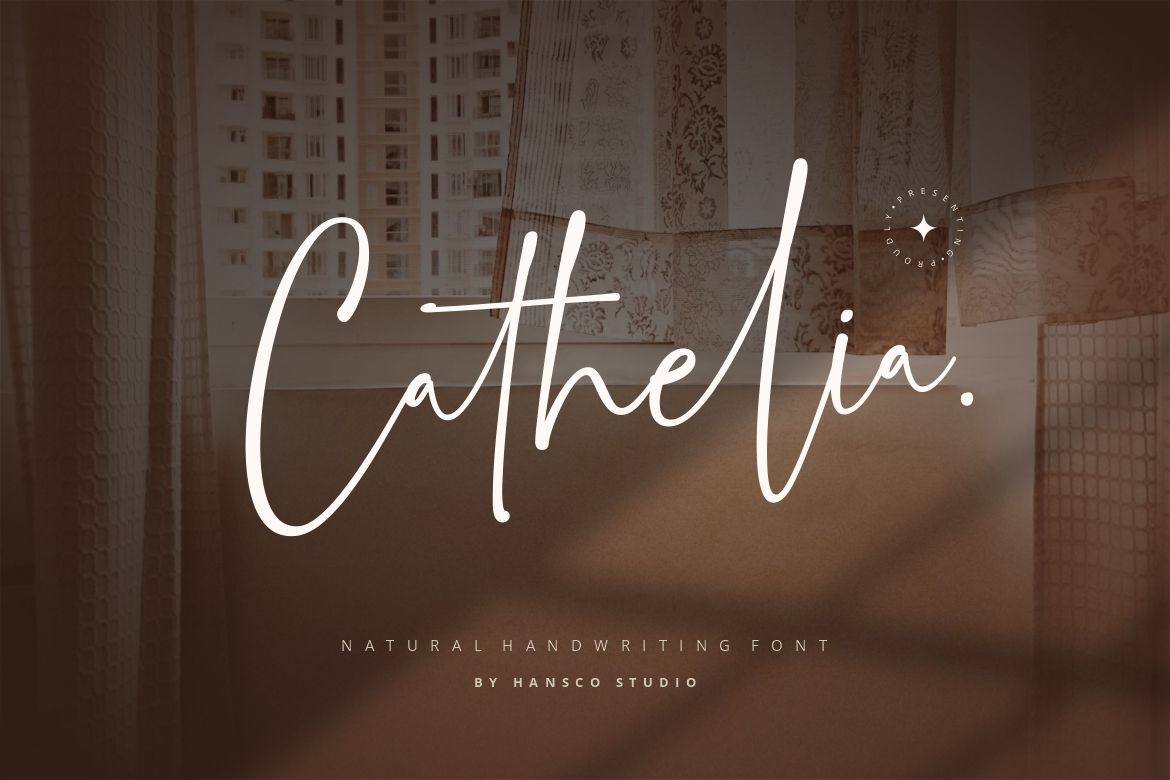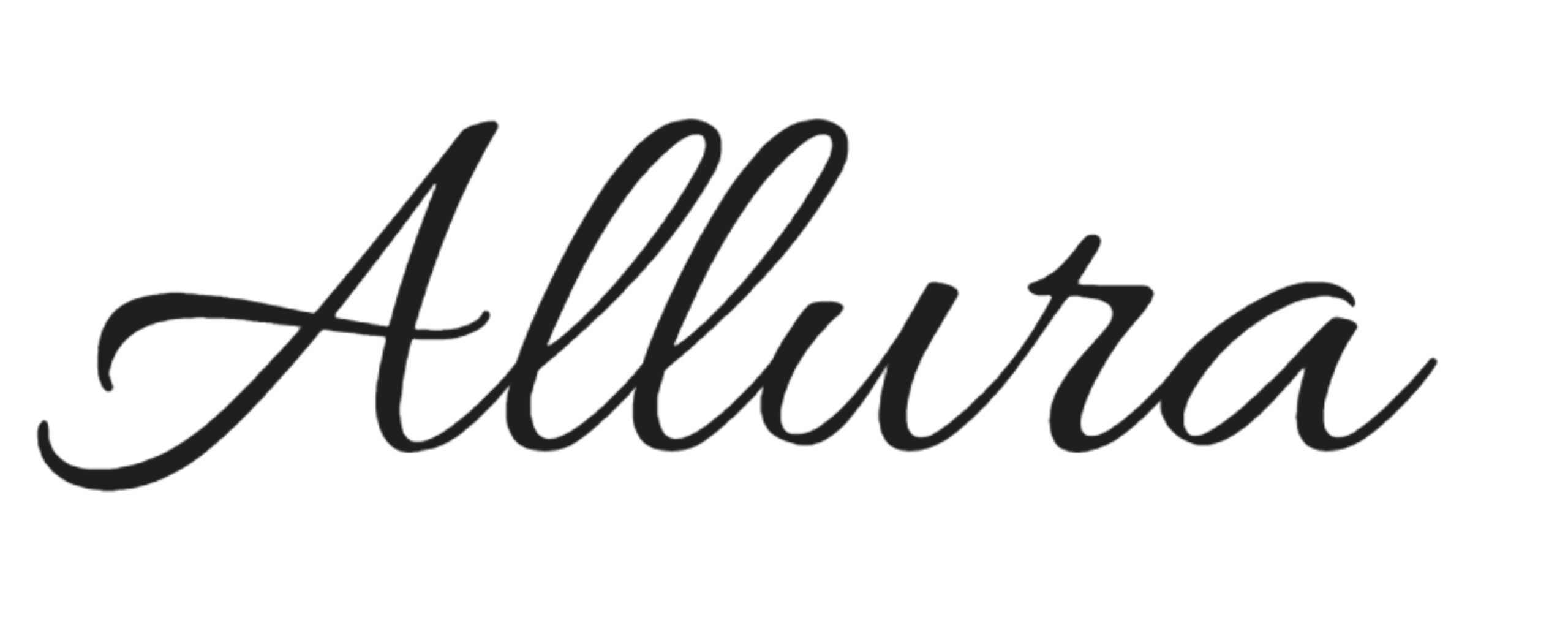
Vintage Handwritten Fonts Inspiration!
Vintage handwritten fonts can enhance design with their graceful characteristics. But, knowing that it has numerous distinctive styles, you may need to choose the right one that can give impressive benefits to your brand.
For this reason, we’ve come up with a list of handwritten fonts that may inspire you to create great artwork, ones that have a powerful effect. Let’s dive into the recommendation now!
Best Vintage Handwritten Fonts Inspiration
Believe it or not, font choices determine how well a design’s result can be. Either you are a senior or beginner designer, sometimes choosing the right font can feel so frustrating.
We surely understand you and that’s why, we are here to give you a source of inspiration to look for. This list must be beneficial, especially if you are working on vintage themed designs.
1. Arizonia
Arizonia with its bold strokes can transform your design to have a lively effect. Though it’s categorized as a vintage font, the flowing letterforms made this handwritten also suitable for modern design.
Mostly, designers love to use them for creating engaging headlines and it will look better when paired with serif fonts or other neutral fonts.
2. Allura
Allura is such an alluring and delicate font, often used for romantic themed events. Its graceful style also radiates feminine energy, so it’s very likely to find them in feminine products’ branding.
Just like Arizona, this font looks good when combined with serif fonts.
3. Balqis
If you are more up to a playful and quirky vintage handwritten fonts, Balqis is one of the best fit for you. The letters look bumpy and bouncy that can add a fun-loving feel to your design. For best use, Balqis are mainly applied in logos and headlines.
4. Dancing Script
Dancing Script is a vintage cursive font style with reference to the 1950s era. Each letter has a different height as if it is flowing naturally and seamlessly. It suggests a personal touch makes it perfect for designers who want to highlight a human-made feel design.
5. Great Vibes
Great Vibes is popular for its refined strokes and formal calligraphy styles. The strokes are more dynamic and legible to read even if it’s elaborated with other ornamental effects.
It also conveys a solid emotional tone, especially perfect to use in wedding invitations and feminine brands. But, if you want to combine the font for high-end and luxury designs, Great Vibes remains an ideal choice.
6. La Luxes Script
La Luxes Script blends vintage with modern luxurious styles. Its elegant letterforms feature high contrast strokes, upscaling a design into a glamorous look. Their intricate style offers versatility, applicable for headlines, wedding invitations, and vintage logos.
You can also expect diverse ligatures and alternates when downloading this font. It’s very beneficial to create customizable designs.
7. Satisfy
Satisfy is a friendly vintage font that looks fun yet elegant at the same time. If you go for vintage casual branding, Satisfy is a well-suited option. Use them to create approachable designs for your cafes, coffee shops, or handcrafted shops.
8. Sacramento
Sacramento is one of vintage handwritten fonts that radiates 50s and 60s energy. This font is giving a classic aesthetic vibe from its monoline and signature script style.
Such specialty makes Sacramento a good fit for brands that want to add more personal promotional strategy. Combine with Roboto and Open Sans for more proportional results.
More Handwritten Fonts by HansCo Studio
Looking for more font options with fresh and signature handwriting styles? HansCo Studio still has tons of recommendations for you, all of which are created to bring harmony to your designs.
9. Aurantiaca
Aurantiaca is a feminine handwriting style that has flowy and elegant strokes. The letters connect seamlessly, but conveying aesthetic imperfection to resonate real handwriting. Best use across distinctive purposes, from branding, packaging, and clothing.
10. Beauty Story
Cute, friendly, and playful, that’s how Beauty Story stands out from other vintage handwritten fonts. It has simpler strokes and rounded letterforms, making it more readable and lively.
Considering its playfulness, this font generally works best for social media branding, journals, and even children’s products. It compliments aesthetic variety in your design and makes graphics look less monotonous.
11. Cathelia
For those who adore simplicity and legibility, Cathelia is a perfect font to add into your design. It is often used in personal portfolios, lifestyle content, and website design because of its clean looks.